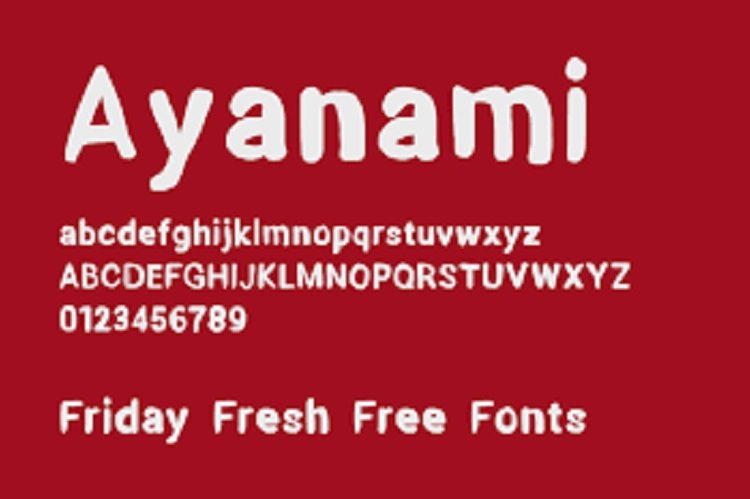
Ayanami Font
Ayanamis Free Font is a Filbert paintbrush font. Silly but good looking, fresh, and fun. Really suitable to highlight personal messages. The name inspired by Rei Ayanamis, a fictional character of Neon Genesis Evangelion.